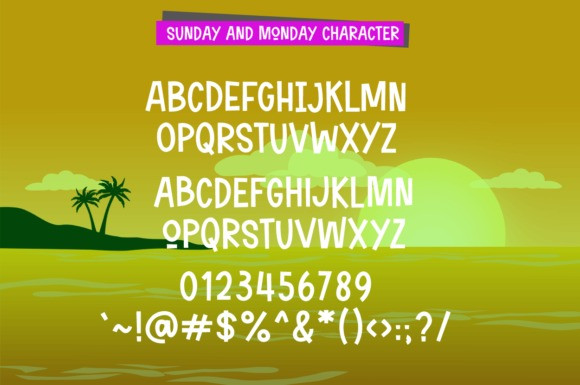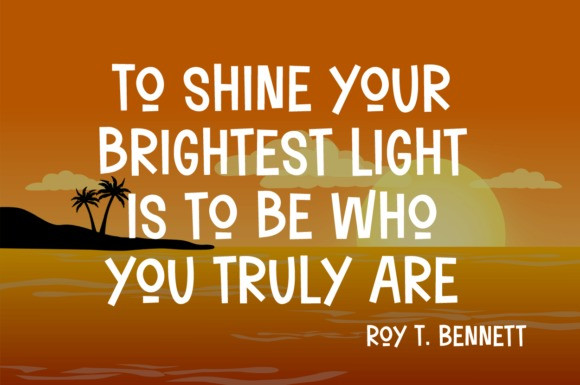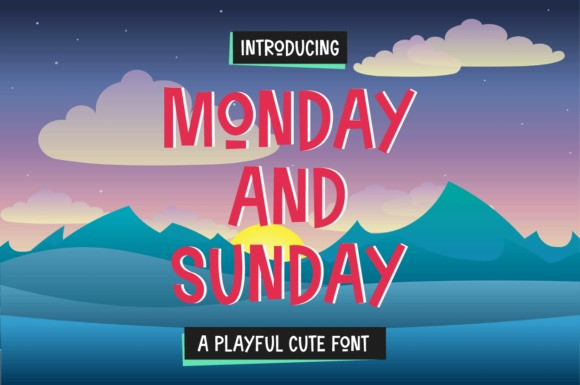
Sunday And Monday Font
Sunday and Monday Display Font is a cute and friendly display font. Whether you are using it for cartoon-related designs, children games, quotes, titles, brand names, book covers, posters, or just any creation that requires a touch of joy, this font is a great choice.